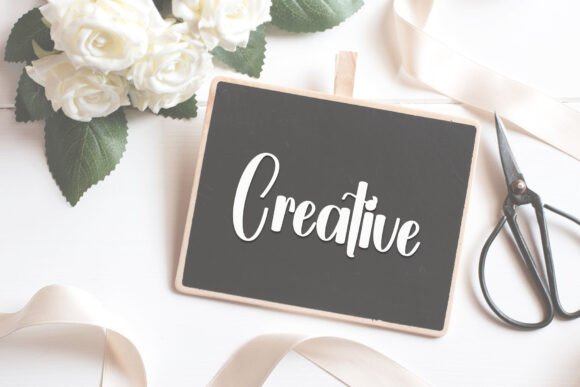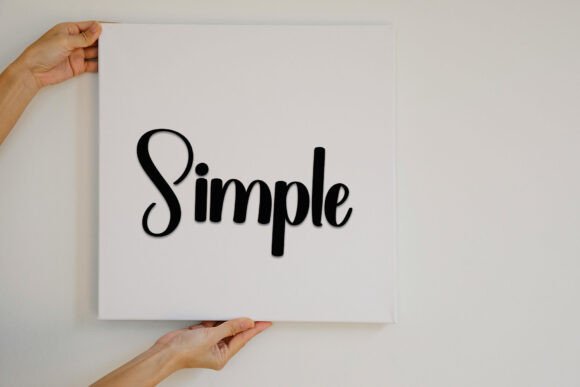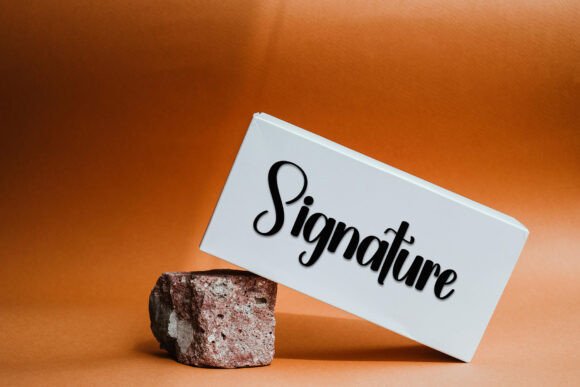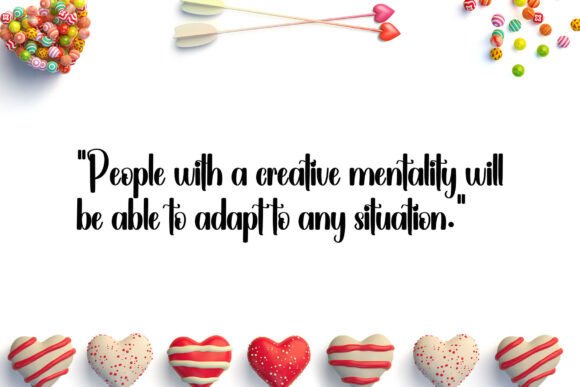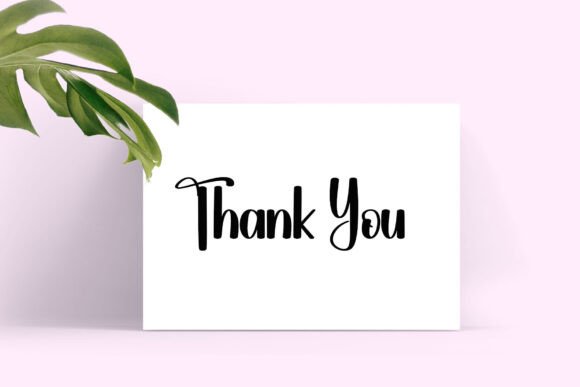
The Astrology Font: Elevate Your Designs with Timeless Elegance
I’ll never forget the design project that led me to discover the Astrology Font. I was working on a branding project for a luxury wellness client, and I was struggling to find the perfect font to capture the essence of their high-end services. The client wanted something that exuded elegance, sophistication, and a touch of mystique. After hours of scouring font libraries and testing various typefaces, I stumbled upon the Astrology Font. It was love at first sight! ✨
As a designer, I’m always on the lookout for fonts that can elevate my projects and make them stand out. Here’s what I love about the Astrology Font:
- ✅ Its contemporary, handwritten feel with a classic twist
- ✨ The impeccable form and elegant lettering
- 💫 The versatility to work well in both digital and print designs
- 🔥 The ability to add a touch of sophistication to any project
While the Astrology Font is an excellent choice for many design projects, it’s not without its quirks. Here are a few limitations to consider:
- ⚠️ The font may not be the best choice for very large or very small text sizes, as some details may get lost
- 🤔 Some users may find the font a bit too ornate or decorative for certain design applications
The Astrology Font was inspired by the timeless beauty of classic calligraphy. Its designer sought to create a font that would evoke the elegance and sophistication of traditional lettering, while still feeling modern and fresh. The result is a font that is both nostalgic and contemporary, perfect for designers looking to add a touch of luxury to their projects.
| What is the Astrology Font? | The Astrology Font is a trendy, handwritten font with a contemporary atmosphere and impeccable form, inspired by timeless classic calligraphy. |
| What design applications is the Astrology Font suitable for? | The Astrology Font is versatile and can be used in a variety of design applications, including branding, packaging, advertising, and more. |